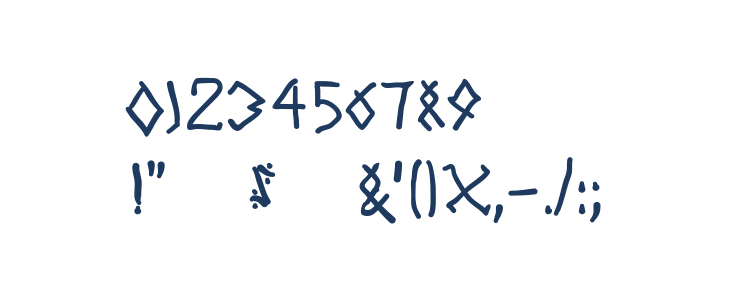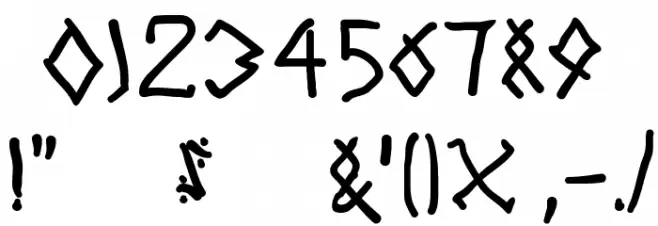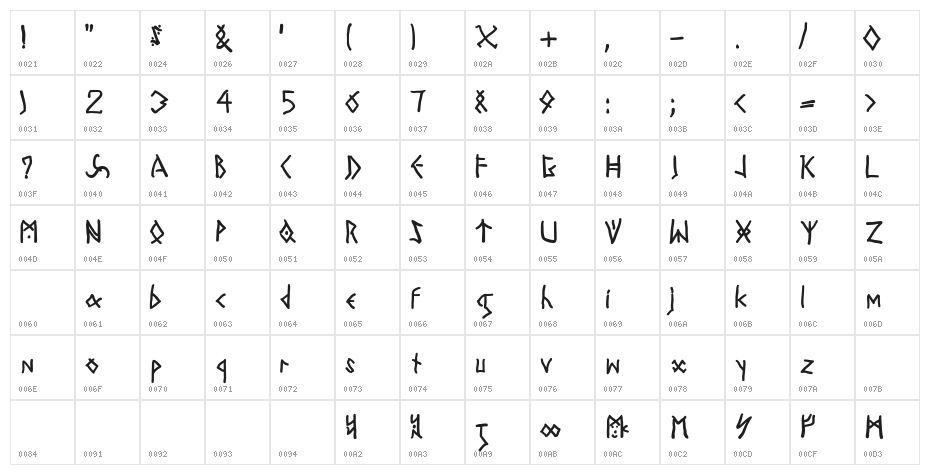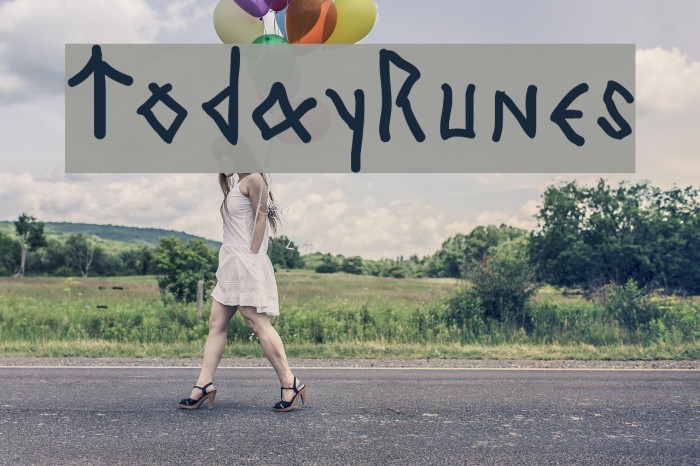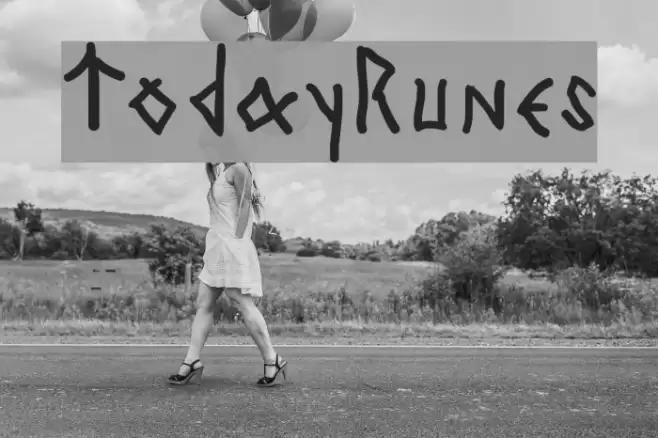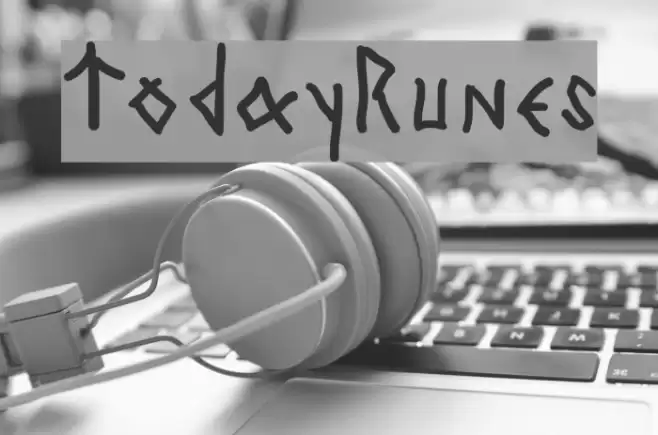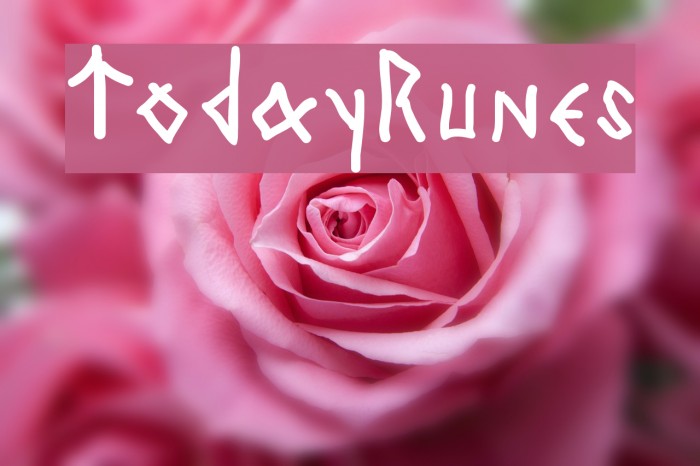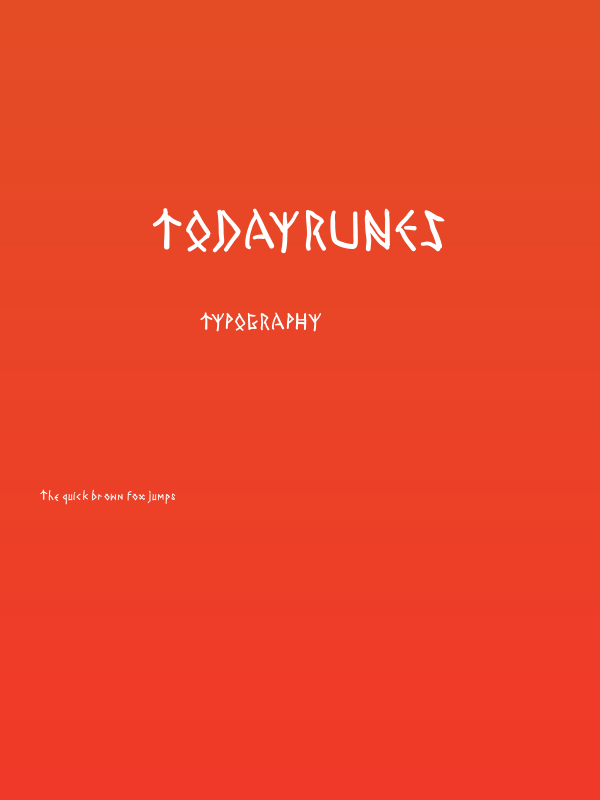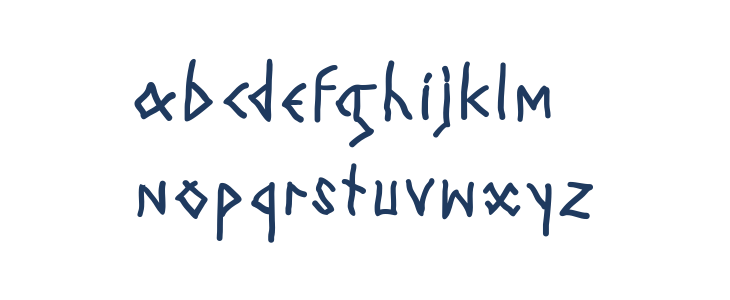
TodayRunes Font
TodayRunes Description
This font features a unique, rune-inspired design that combines ancient script aesthetics with modern readability. The characters are crafted with angular strokes and distinctive geometric forms, evoking a sense of mystery and antiquity. Each letter maintains a consistent height, while the varying stroke thickness adds a dynamic quality to the overall appearance. The uppercase and lowercase letters share a similar style, enhancing the font's cohesive look. Numbers and special characters are designed to match the alphabet's distinctive style, making this font versatile for various applications. The overall design is bold and eye-catching, suitable for projects that require a touch of historical or mystical flair.
| Overall Style | Mystical, Ancient, Decorative |
| Proposed Projects | Ideal for fantasy-themed projects, game design, book covers, posters, and branding that requires a historical or mystical touch. |